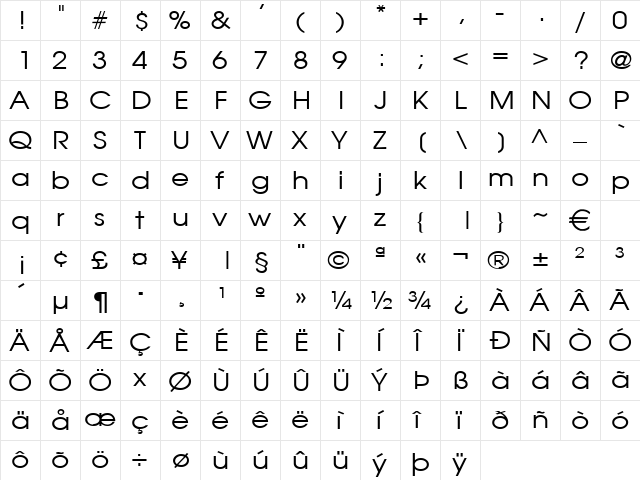
AtillaWide Normal
Design Context for AtillaWide Typeface
AtillaWide takes a measured approach to typography — its balanced proportions and neutral character make it a reliable workhorse for both digital and print work.